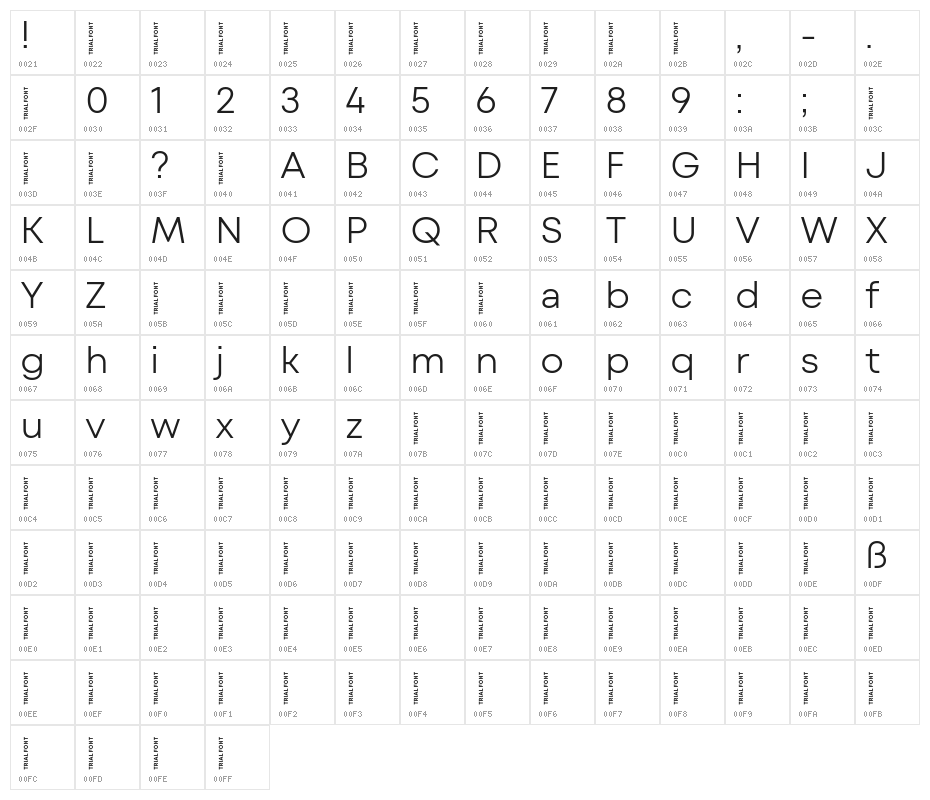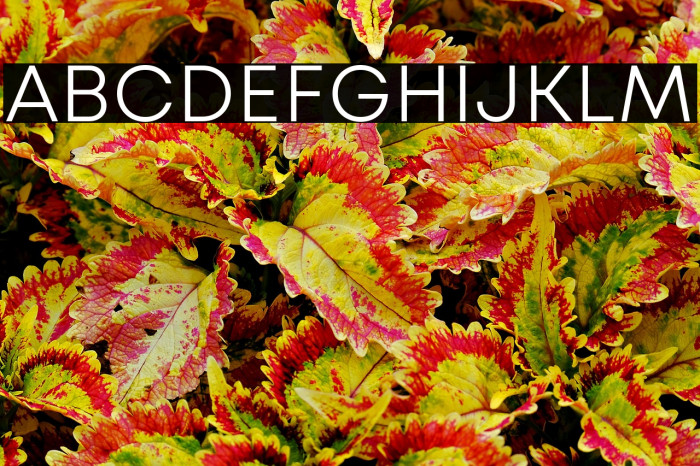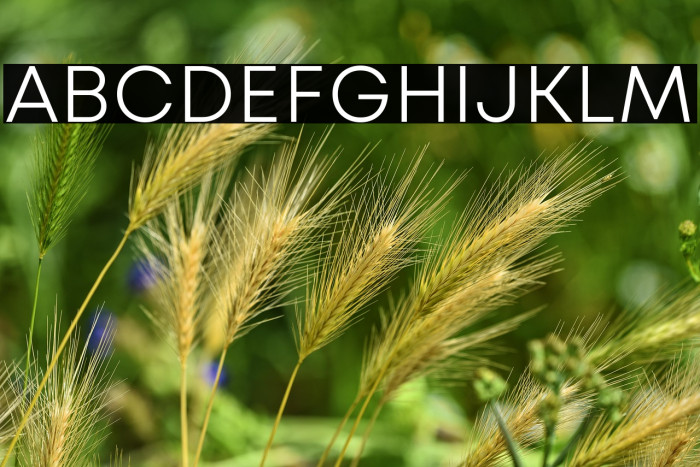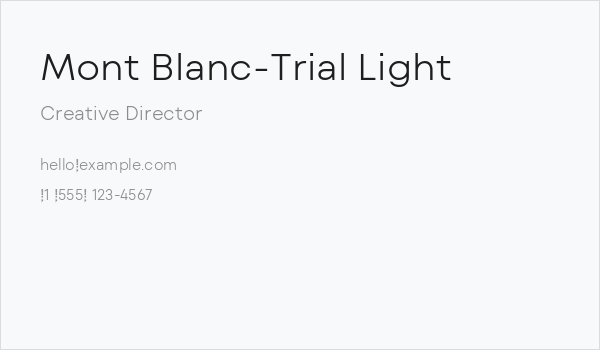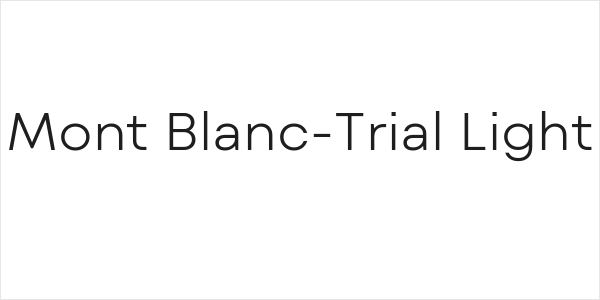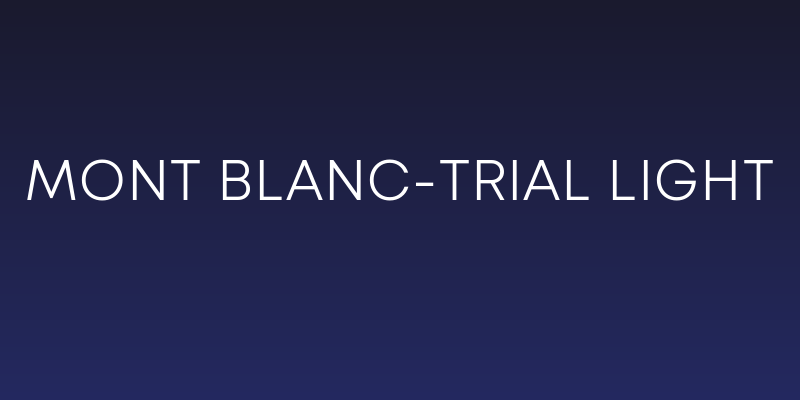
Mont Blanc-Trial Light Font
Mont Blanc-Trial Light Description
This font features a clean and modern sans-serif design with a light weight, making it ideal for contemporary applications. The characters are well-proportioned with a consistent stroke width, contributing to its legibility and sleek appearance. The uppercase and lowercase letters maintain a harmonious balance, while the numerals are clear and distinct. The special characters are designed with simplicity, enhancing the overall minimalist aesthetic. Its versatility makes it suitable for a wide range of design projects, from digital interfaces to print media.
| Proposed Projects | Ideal for digital interfaces, branding, editorial design, and minimalist print layouts. |